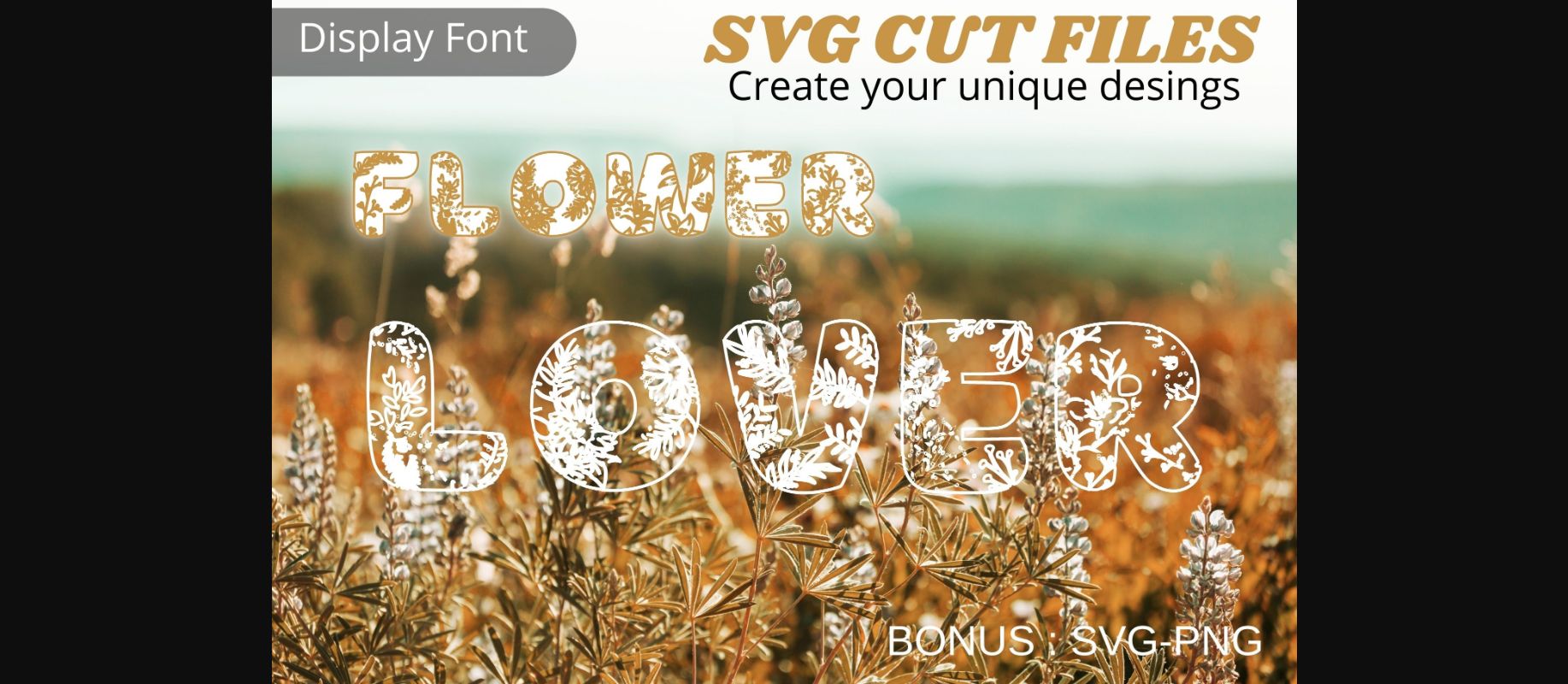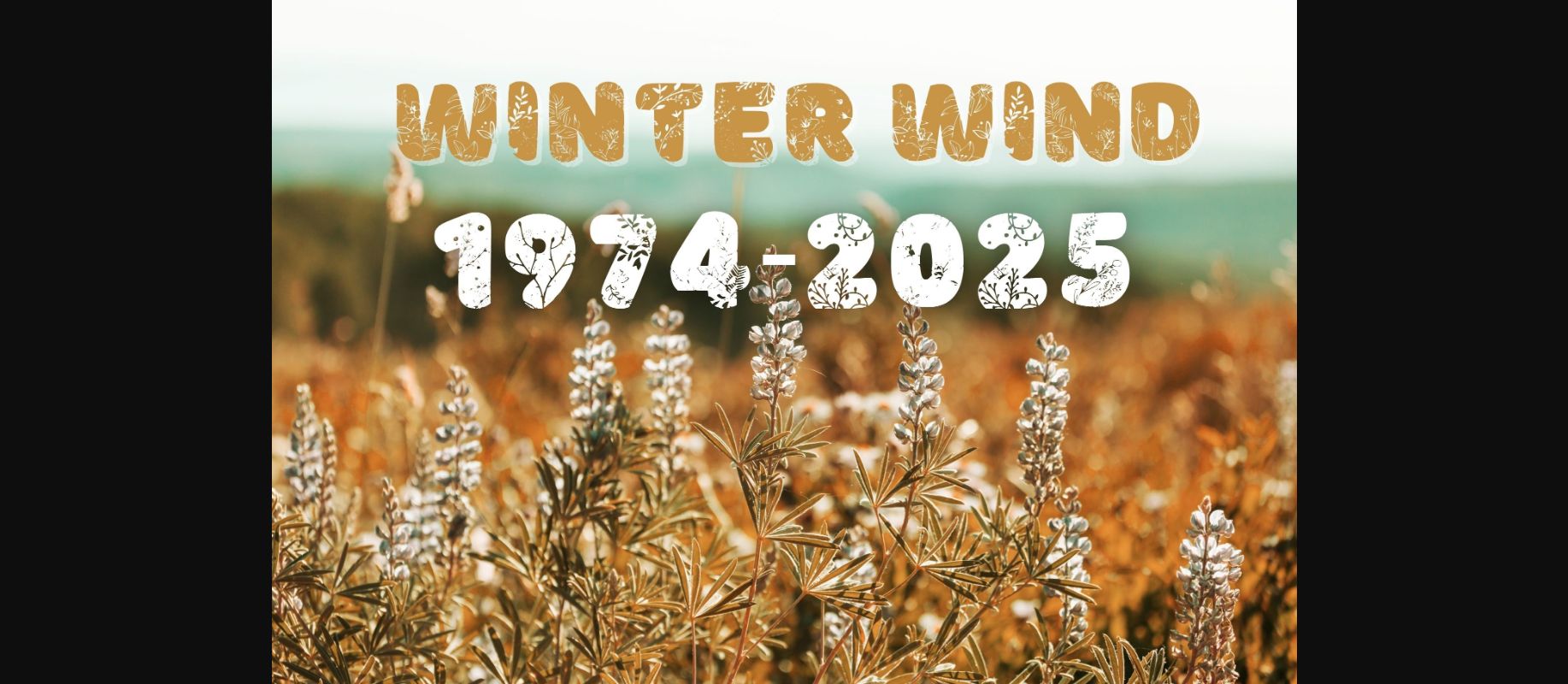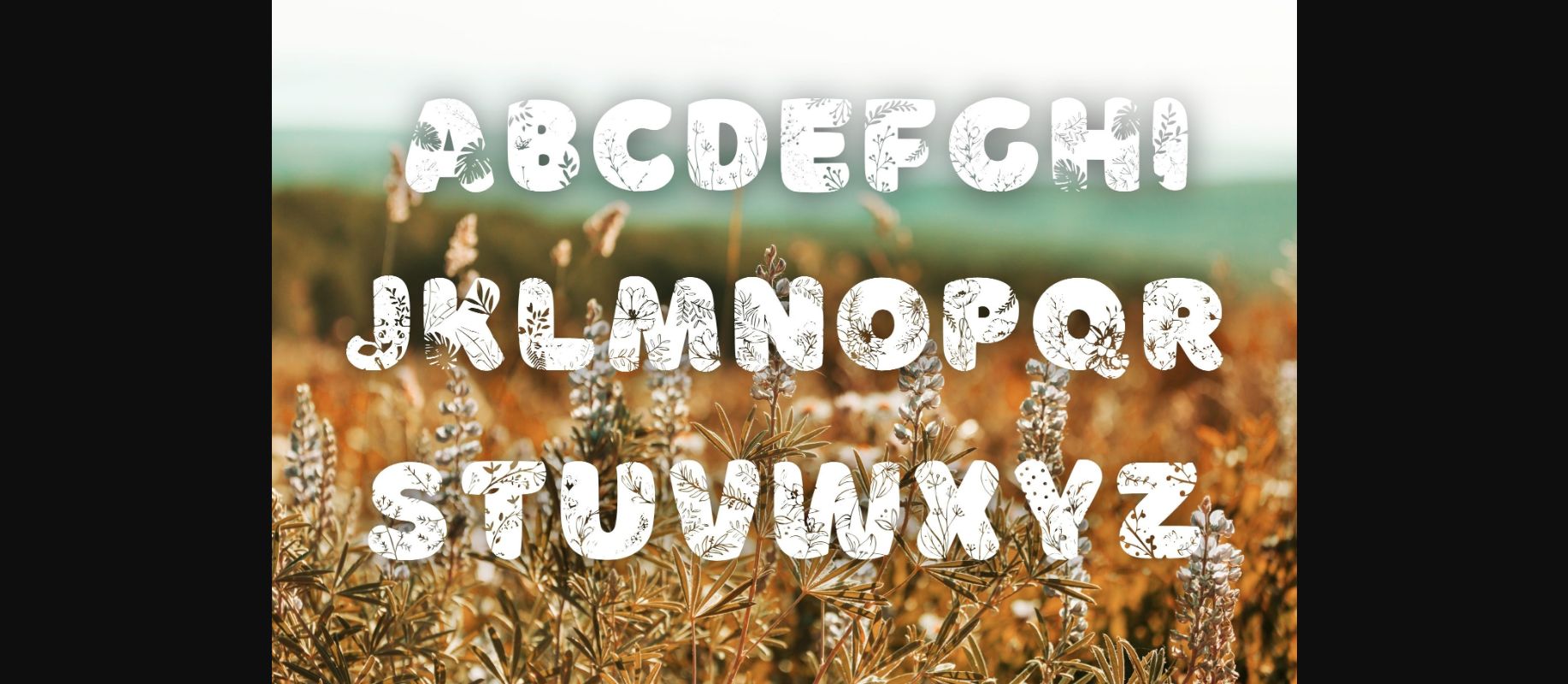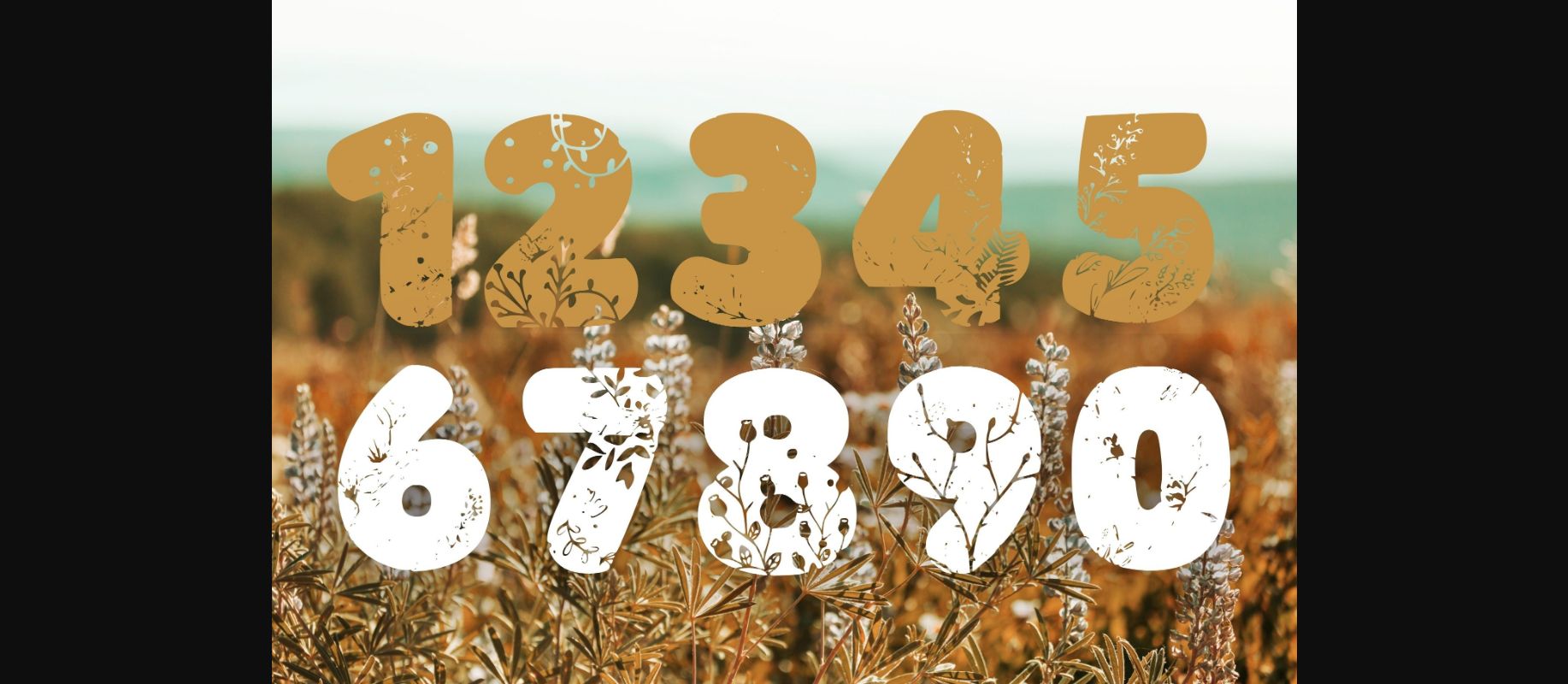
About Flower Lover Font
Flower Lover is a highly detailed, fresh and unique decorative font. You can use it for various projects, such as blog posts, logos, branding, ads, invitations, greeting cards, planners, photo albums, decorations, and much more. Add it to any of your designs, and enjoy the results!